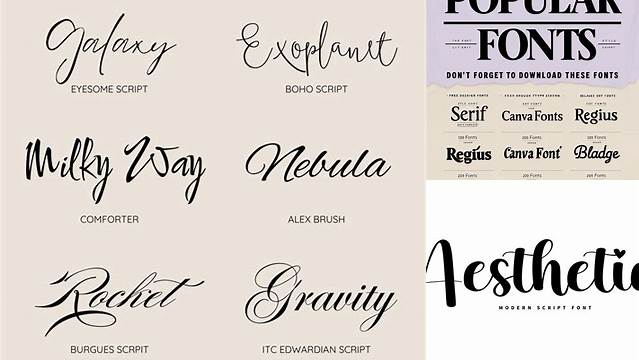
Aesthetic Fonts: Your Guide To Stylish Writing
Crafting visually appealing content is more than just a trend; it's an art form. And when it comes to visual appeal, aesthetic fonts for writing play a pivotal role. They're the unsung heroes that can transform mundane text into captivating pieces, drawing readers in and enhancing the overall reading experience. This article dives deep into the world of these fonts, exploring their nuances, providing recommendations, and guiding you on how to choose the perfect typography for your writing endeavors. Get ready to elevate your words with style and make your content truly unforgettable.
1. Unveiling the Allure of Aesthetic Fonts
Alright guys, let's talk about the magic of aesthetic fonts for writing. They're not just pretty faces; they're powerful tools. Think of them as the makeup for your words, instantly adding personality and flair. They go beyond the basic Times New Roman or Arial, offering a diverse range of styles, from elegant scripts to quirky hand-drawn designs. The right font can instantly convey the tone and mood of your writing, setting the stage for your message. The allure is undeniable; they grab attention and make your content more memorable. When you use aesthetic fonts, you're not just writing; you're curating an experience for your readers. It's about crafting something visually pleasing that complements the content itself, making the reading process more engaging and enjoyable. These fonts can create an emotional connection with your audience, fostering a deeper appreciation for your work. Think of a handwritten font used for a heartfelt letter or a bold, modern font that screams confidence in a marketing campaign. The choices are endless, and the impact is significant. The use of these fonts enhances readability, making the text easier on the eyes. This is especially important for online content, where readers tend to scan through text. By choosing a font that is both visually appealing and legible, you can encourage readers to stay longer and absorb your message more effectively. In essence, these fonts help to set you apart from the crowd, creating a brand identity that resonates with your target audience.
2. Decoding the Styles: Types of Aesthetic Fonts
Okay, so you want to know about the different types of aesthetic fonts for writing? Let's dive into the world of typography! There's a diverse range of styles to choose from, each with its own unique characteristics and applications. First, we have the ever-popular script fonts, which mimic handwriting. These are perfect for adding a touch of elegance, romance, or a personal touch. Think of wedding invitations, greeting cards, or anything that requires a sophisticated vibe. Then, there are serif fonts, known for their traditional appearance with small strokes at the ends of each letter. They exude a sense of formality and are often used in print media like books and newspapers. Next up are sans-serif fonts, which are clean and modern, without the strokes. They are very versatile and are suitable for both print and digital content, giving a sleek look. You also have display fonts, which are bolder and designed for headlines, titles, and short pieces of text. They are meant to grab attention and make a statement. Finally, we have decorative fonts, which are designed to add a unique flair to your designs. These can include anything from hand-drawn fonts to fonts with elaborate designs, all with a creative vibe. Understanding these different styles will enable you to select the ideal font for your project. Remember that the best font to use will depend on your individual needs and the audience you are trying to reach. The right choice can transform your writing and make it shine.
3. Finding Your Perfect Match: Font Selection Tips
Choosing the perfect font can be a game changer in using aesthetic fonts for writing. So, let's get you some tips. Consider your audience. What kind of tone do you want to achieve? Are you writing for a formal setting or a casual setting? Next, consider the message you're trying to convey. Different fonts express different personalities. A playful font is good for fun stuff, while a serif font brings formality. Always make sure your chosen font is easy to read. Prioritize legibility, especially for the main body of your text. Test the font. Write a sample of your content with the font you're considering. See how it looks in different sizes and on various backgrounds. Does it suit your style? Another thing is to think about the combination of fonts. Pairing fonts can make your content more dynamic. But make sure they complement each other. Finally, experiment with different fonts and don't be afraid to try something new. Font choice is all about the impression you want to make. Choose the font that resonates with your brand and target audience and creates a lasting impression. Consider the context, such as where your writing will be displayed, to help you decide which font will be the most suitable. Keep the design principles like contrast, balance, and harmony in mind to make your content aesthetically pleasing and reader-friendly. Remember, the goal is not only to communicate your message effectively but also to make it a pleasant experience for your audience. The right font choice makes a great impact.
4. Free vs. Premium: Where to Find Aesthetic Fonts
Okay, so you want to know where to find aesthetic fonts for writing? Here's the lowdown. There are loads of places to find fonts, both free and paid. Free fonts are awesome when you're on a budget. They are readily available from websites like Google Fonts, Font Squirrel, and DaFont. These sites offer a vast selection of fonts, from basic to quirky. However, free fonts often come with limitations. They might not have as many variations or extensive licensing rights. Always check the licensing agreement, as some free fonts are only for personal use. If you need the font for commercial purposes, make sure it's allowed. Premium fonts are paid fonts, which offer a higher quality and variety. You can find them at websites like Adobe Fonts, MyFonts, and Creative Market. Premium fonts often come with multiple weights, styles, and extended character sets. They also come with a commercial license, meaning you're free to use them for any project. Think of these as an investment. Premium fonts can significantly enhance the professional look of your writing. They may also have better design and quality. Many font designers offer support. They also have updates. The choice between free and premium depends on your project and budget. If you are a beginner or doing a personal project, free fonts are a good choice. But for professional work, invest in premium fonts to get the best results. Don't forget to compare and research before choosing a font.
5. The Art of Pairing: Font Combination Techniques
Let's talk about the magic of using aesthetic fonts for writing! Pairing fonts is about creating a balanced and visually appealing design. Avoid clashing combinations. Now, here are some tips to help you achieve that. Start with your primary font, the one you will use for headlines or titles. Select the secondary font for the body text. Choose fonts with different characteristics but which complement each other. You can use fonts from the same family, such as a serif font for headlines and a sans-serif font for body text. Another tip is to use contrasting fonts. Combine a bold display font with a simple sans-serif font. This creates a visual interest and guides the reader's eye. Also, keep the hierarchy of the fonts in mind. Make sure that your headlines and subheadings are more prominent than the body text. You can achieve this by using a larger font size or a bolder weight. Limit the number of fonts you use in a project. The general rule is two or three fonts at most. Using too many fonts can create a chaotic look. It is always important to consider readability. Your goal is to make your content easy to read. If the fonts are too different, they may be hard to distinguish. The combination of fonts should fit your brand and the message you're trying to convey. Experimenting is key. Test different combinations and see what works best for your writing. Practice makes perfect. With the proper pairings, you can make your content stunning and aesthetically pleasing.
6. Aesthetic Fonts for Branding: Building a Visual Identity
Let's dive into how you can use aesthetic fonts for writing to build a powerful brand. A visual identity is how your brand appears, including your logo, colors, and typography. This visual identity makes a strong impression. The font you use plays a vital role. First of all, choose a font that is representative of your brand's personality. Is your brand fun or professional? The font needs to match your brand's values and characteristics. Consistency is also important. Use the same font across all your marketing materials, from your website to your social media. This consistency will help build brand recognition. The font should reflect your brand's personality, creating a sense of trust and recognition. In addition, the font should be easy to read and visually appealing. This will ensure that your audience will actually read your content. You need to find a font that is compatible with your brand's personality. When building your brand, the font should also align with your target audience. Consider your audience's preferences and the type of content they consume. Experiment with your fonts and try different combinations. This will help you decide what best represents your brand. With the right font, you can make a lasting impact on your audience.
7. Enhancing Readability: Font Size and Spacing Considerations
Guys, when you are using aesthetic fonts for writing, it's not all about looks! It's essential to focus on readability. The font size makes a difference. Ensure that your font size is large enough to be easily read on different devices. For body text, a font size between 14-16 points is a good starting point. Consider your audience. What is their average age? The right font size ensures your content is accessible. Besides font size, spacing also plays a key role in readability. Proper spacing between letters, words, and lines of text makes a huge difference in how easy your content is to read. Use a line spacing of at least 1.5 times the font size. This will give enough space between lines. Adjust the letter spacing to prevent the letters from being too crowded or too far apart. Experiment with spacing to improve the overall readability. Make sure there's enough contrast between your font and the background color. This helps to improve readability. Avoid using light fonts on light backgrounds. In addition, consider the length of your lines of text. Lines of text should not be too long or too short. Keep your text easy to read. When optimizing your font, ensure it looks good on both desktop and mobile devices. Proper use of font size and spacing makes your content reader-friendly and enhances the overall user experience.
8. Aesthetic Fonts for Social Media: Making a Statement
Okay, let's talk about using aesthetic fonts for writing on social media. Social media is all about making a statement. Make your posts stand out with fonts. Consider the platform you're using. Instagram loves script fonts and stylish sans-serif fonts. Twitter is more about clarity and readability. You can use different font styles to create a unique brand identity. The font reflects your personality. Use the font to reflect your brand's tone. Create a consistent visual style. Using the same fonts across all your social media platforms will enhance your brand recognition. Make sure your font is easy to read on mobile devices. Most people view content on their phones. Use text overlays to add a personal touch to your photos. Choose fonts that match your photos and the theme of your post. Combine font styles to create a dynamic look. You can mix and match different fonts to highlight certain words or phrases. This helps capture your audience's attention. Remember to keep it simple. Don't overdo the fonts. The text should enhance your message, not distract from it. Always consider your audience. Choose fonts that appeal to them. By using stylish fonts on social media, you can make your posts more engaging and memorable.
9. Aesthetic Fonts for Websites: Designing for Readability
Using aesthetic fonts for writing to design your website is essential. Your website is often the first impression of your business. Fonts play a critical role in conveying your brand identity. When selecting fonts for your website, focus on readability. Choose fonts that are easy to read on different devices and screen sizes. Start with the body text. Use a clear and legible font for your body text. This ensures that visitors can easily read your content. Choose a font size that is appropriate for your target audience. You must also focus on the headings. Use a more decorative font for your headings. This will help to create visual interest. However, ensure that the heading fonts are legible. Test your font choices. Make sure the fonts work well on different devices. Ensure your website is accessible. When choosing your website fonts, you need to also consider your brand's personality. The font should reflect your brand's personality. If your brand is professional, use a more traditional font. Use a more modern and playful font for brands with a younger audience. Keep the design simple. Avoid using too many fonts on your website. This can make your website look cluttered. Keep the font colors in mind. Always ensure that the font colors contrast with the background. Use a font that is easy to read. When you get the font right, your website can have a greater impact on your visitors.
10. Aesthetic Fonts for Print: Making a Tangible Impact
Let's talk about how you can use aesthetic fonts for writing to make a tangible impact in print. Print materials, like brochures and posters, are still very important for businesses. The font is important for creating a great impression. First, consider the purpose of your print material. Are you creating a brochure, a poster, or a business card? The type of font you choose will depend on your print material. Readability is critical. Choose fonts that are easy to read, even in small sizes. For brochures and books, serif fonts are a great choice. They are easy to read in print. For posters and headlines, you can use a more decorative font. The font size should be appropriate for the print material. Use a larger font size for headlines. For brochures, choose a font size for body text that is easy to read. When choosing a font for print, consider the paper stock. Some fonts look better on matte paper. Others look better on glossy paper. Be consistent with your font choices. Use the same font throughout your print materials. This helps to create a cohesive and professional look. Consider your brand. Choose a font that reflects your brand's personality and values. If your brand is modern, use a clean, sans-serif font. Make sure your font is clear and easy to read. With the right font, your print materials will make a good impact.
11. Aesthetic Fonts for Digital Art: Adding Flair to Visuals
Using aesthetic fonts for writing in digital art can add a layer of creativity. If you are a digital artist, this is for you. First, select a font that complements your artwork. Do you want to create something bold or subtle? The font can enhance the emotion of your work. The font should match your art style. If you are creating minimalist art, select a clean font. If your art is more whimsical, you might choose a script font. Consider the color of your font. Choose a color that contrasts with the background of your art. This will ensure that the text is easy to read. Experiment with different fonts. You can create a mood or convey a message. The font size matters. Make sure your text is easy to read. The font should be in proportion to the rest of your art. You can also add text to your digital art. Select a font that fits your artwork. If you want to create more emphasis on your text, you can use a bold font. You can also add shadows, gradients, and other effects to your text to make it more interesting. Test your font choices. Make sure your text is visible and readable on different devices. By using fonts creatively, you can take your digital art to the next level.
12. Aesthetic Fonts for Invitations: Setting the Tone
Creating the perfect invitation is important when you want to use aesthetic fonts for writing. The font you choose sets the tone. Consider the event you're hosting. Is it a wedding, a birthday party, or a corporate event? The font choice has to fit the event. For weddings, elegant script fonts are good. For birthday parties, you can use a more fun font. When selecting your font, choose a font that reflects your personality. If you love classic style, a serif font is a good choice. If your style is modern, a sans-serif font will be fine. Readability is important. Choose a font that is easy to read. Make sure the font size is appropriate for the amount of text you need to include. Consider the paper type and printing method. If you are using a more formal printing method, you'll want to choose an elegant font. Test your font choices. Print a sample of your invitation to see how it looks. Experiment with different font combinations. You can use a mix of fonts to make your invitations look unique. Make sure that the fonts are harmonious and easy to read. Consider the overall design of the invitation. The font should match your design. By using aesthetic fonts, you can create invitations that impress your guests.
13. Aesthetic Fonts for Logos: Creating a Brand Identity
Let's talk about aesthetic fonts for writing when it comes to logos. Your logo is the face of your brand. It's important to choose a font that makes a good impression. A logo is the first thing customers will see. When choosing your logo font, consider your brand's personality. Is your brand friendly or formal? The font should reflect your brand. For a modern brand, a clean, sans-serif font is a good choice. For a traditional brand, a serif font will work well. The font should also be easy to read. The font must be easily understood. Avoid fonts that are too complex or ornate. Make sure your font is unique. Do a search to ensure your font is not similar to another brand's logo. Consider the colors. Choose a font color that contrasts with the background color of your logo. You should also think about versatility. The font should look good in different sizes and applications. Test your logo. Test your logo on different backgrounds. You can also ask others for feedback on your logo. Use the right font to represent your brand. Your logo can make a lasting impression.
14. Aesthetic Fonts for Email Marketing: Engaging Subscribers
When you're thinking about aesthetic fonts for writing, consider email marketing. Your email font plays a huge role in engaging your subscribers. A well-chosen font enhances the readability and design of your emails. Choose a font that's clear and easy to read. This is especially important because your subscribers will view your email on different devices. Make sure the font size is appropriate for your readers. The best choice for body text is a sans-serif font. Consider your brand's identity. Choose a font that matches your brand's personality. If your brand is friendly, use a more casual font. Keep your email design simple. Too many fonts and styles can confuse your subscribers. Test your emails before sending them. Send a test email to yourself. Make sure the font looks good on different devices. Always focus on mobile devices. Most people read emails on their phones. By using great fonts in your email, you can grab your audience's attention and keep them engaged.
15. Aesthetic Fonts for Presentations: Captivating Your Audience
When you make presentations, you should know how to use aesthetic fonts for writing. Your font choices can captivate your audience. The right font choices improve the readability of your slides. Choose a font that is easy to read from a distance. San-serif fonts are usually recommended for presentations because they are clear. Use a large font size. Make sure your font is big enough for everyone to see, even in the back of the room. Create contrast. Use a dark font color on a light background, or a light font color on a dark background. Limit the number of fonts. Stick to one or two fonts to avoid a cluttered look. Use headings and subheadings. You can use a different font for headings to create visual interest. Choose the right font for your brand. Your font choices can strengthen your message. Make sure your presentation is clear and easy to read. By using aesthetic fonts, you can make your presentations more engaging and memorable.
16. Aesthetic Fonts for Documents: Ensuring Professionalism
Let's talk about how to use aesthetic fonts for writing to make your documents look professional. First, the font you use can improve the readability of your documents. When writing documents, choose a clear and legible font. A serif font such as Times New Roman or Garamond is generally a great choice for a professional document. Make sure that your font size is appropriate. The standard font size for documents is 12 points. Use headings and subheadings to break up the text. This makes your document easier to read. Use bolding, italics, and underlines to emphasize key points. Keep your document consistent. Use the same font and formatting throughout your document. Avoid using too many different fonts. Use a font that reflects the tone of your document. If you are writing a formal document, use a more traditional font. Check for any design standards. By using the correct fonts in your documents, you can show that you're professional and detail-oriented. This will make your documents look good and impress your readers.
17. Aesthetic Fonts for Calligraphy: The Art of Lettering
Are you interested in learning how to use aesthetic fonts for writing in the art of calligraphy? The art of calligraphy is about beautiful lettering. The font is a central part of the art form. When you begin with calligraphy, choose a script font. Script fonts mimic handwriting. There are many different styles. You can use a variety of different pens and inks. Choose a pen that feels comfortable in your hand. You can also use different inks. Select the color that suits your style. Then, you can start practicing. The more you practice, the better you get. Work on consistency. The letters should be uniform. Practice the strokes. Practice the different strokes that make up the letters. Experiment with different styles. Don't be afraid to try different fonts and styles. There are many different calligraphy styles. You can combine the styles to make something unique. By practicing the art of calligraphy, you can create a beautiful piece of art. Calligraphy can also be used in invitations, cards, and many other places.
18. Aesthetic Fonts for Bullet Journals: Personalizing Your Planner
When you are using aesthetic fonts for writing, bullet journals are a great option for you! Bullet journals are personalized planners. They are also a creative outlet. You can use them to manage your daily tasks. When choosing a font, choose one that is easy to read. A script font is a great option. You can also use a sans-serif font. You can use a variety of pens. Use pens that have different colors and thicknesses. You can also use highlighters and markers to add visual interest. You can create different layouts in your bullet journal. You can include calendars, trackers, and lists. This creates a space for productivity and creativity. Experiment with headers and titles. Add headings to make it easy to organize your bullet journal. The use of different fonts makes your bullet journal look good. Bullet journals are also a creative process. Use colors, doodles, and stickers to make them your own. Bullet journals are a great place to experiment. Bullet journals also provide opportunities to use your imagination. Using aesthetic fonts can elevate your journaling experience.
19. Aesthetic Fonts for Scrapbooking: Preserving Memories
Let's talk about how to use aesthetic fonts for writing in scrapbooking. Scrapbooking is a fun way to preserve your memories. First, the font you choose sets the tone of your scrapbook pages. Select fonts that match your photos and the theme of your pages. If your scrapbook is about a wedding, use a script font. You can also use sans-serif fonts for a modern look. Then, use a variety of fonts. Mixing fonts can add visual interest to your pages. You can mix fonts for headings and body text. When creating your scrapbook, consider the size of your font. Use a font size that is easy to read. You can also add special effects to your fonts. You can add shadows, outlines, and other effects. This will make your text stand out. Make sure your font is consistent. Use the same font throughout your scrapbook. This will create a cohesive look. Scrapbooking is a great way to preserve your memories. Using aesthetic fonts will make your scrapbooks beautiful and memorable.
20. Aesthetic Fonts for Handwritten Notes: Adding a Personal Touch
Using aesthetic fonts for writing adds a special touch to your handwritten notes. You can use script fonts, which are good for making your notes look elegant. The handwriting styles give off a personal feel. You can also experiment with different pens and colors. Using different pens can make your notes look more interesting. Select the right font for your notes. The font you use should be consistent with the message you are trying to convey. Use a font that is legible. The text should be easy to read. The use of an aesthetic font shows you've put in the extra effort. Consider the purpose of your note. Is it a thank-you note, a love letter, or a message to a friend? Using the right font can convey the right message. Handwritten notes are about connection. They show you've put the effort into writing to them. You can personalize your notes by using different fonts, colors, and styles.
21. Aesthetic Fonts for Art Journals: Expressing Creativity
When you use aesthetic fonts for writing, it's also great for art journals! Art journals are about expressing creativity. The font is a central part of the art form. Choose a font that fits your style. If your style is colorful, you can use bold fonts. You can also experiment with different colors. Use a font that complements your art. You can use a script font for a more elegant look. You can also combine fonts to add visual interest to your art journal. Use headings and subheadings to organize your thoughts. Create different sections in your art journal. Art journals are about expressing yourself. Using aesthetic fonts gives you another tool to create and express your ideas. The font choice can inspire your creativity. Create a unique and personal art journal by using various fonts. By using different fonts in your art journal, you can express your creativity.
22. Aesthetic Fonts for Digital Signage: Grabbing Attention
Alright, let's talk about how to use aesthetic fonts for writing to grab attention with digital signage. Digital signage is all about communicating your message to viewers. The right font helps to make your message stand out. Choose fonts that are easy to read from a distance. San-serif fonts work well for digital signage because they are clear. Use a large font size. Make sure your font is large enough for viewers to see. Also, create contrast. Use a dark font color on a light background. You can also use a light font color on a dark background. Keep your design simple. Avoid using too many fonts to avoid a cluttered look. Choose the right font for your brand. Use a font that matches your brand's personality. Ensure that the font is easy to see. By using the right aesthetic fonts for your digital signage, you can make your message more effective. It's a great way to get attention.
23. Aesthetic Fonts for Infographics: Simplifying Information
Using aesthetic fonts for writing is super helpful for infographics. Infographics are about simplifying information. The font plays a huge role in the process. First, when you choose your font, keep readability in mind. Use fonts that are easy to read. Sans-serif fonts are often a good choice. Also, you should choose a font size that is appropriate. The font size should be large enough for viewers to read. You can use different font styles. Make headings stand out. Use headings to create visual interest. Limit the number of fonts. If you use too many fonts, your infographic can look cluttered. You should also consider the layout of your infographic. Make sure the text is easy to read. Use spacing to break up the text. Choose fonts that match your topic. The font should convey your message. With great fonts, your infographic will be informative and engaging.
24. Aesthetic Fonts for Newsletters: Keeping Readers Engaged
Let's talk about how to use aesthetic fonts for writing in newsletters. Newsletters are about engaging readers. When you make choices for your font, it can help you keep your readers engaged. Choose a font that is easy to read on different devices. Sans-serif fonts are great for readability. Select a font that matches your brand's personality. Make sure the font fits your brand. Make sure your font size is appropriate. The font size should be easy to read. Create a visual hierarchy by using different fonts and styles. Use headings, subheadings, and bullet points. Use bold, italics, and colors to create visual interest. Make sure your newsletter is mobile-friendly. The fonts should look great on mobile devices. With the right aesthetic fonts, your newsletter will be engaging.
25. Aesthetic Fonts for Resumes: Making a Professional Impression
When you think about using aesthetic fonts for writing, resumes are a good example! Resumes make an impression. Use a font that looks professional. Consider fonts like Times New Roman or Arial. These fonts are classic and easy to read. The font size should be easy to read. Choose a font size between 10-12 points. Use headings and subheadings to organize your resume. Then, make sure the formatting is consistent. Using the right aesthetic fonts in your resume shows attention to detail.
26. Aesthetic Fonts for Presentations: Enhancing Visual Appeal
When you present your presentations, think about using aesthetic fonts for writing. Your font choices can make your presentations visually appealing. Choose a font that is easy to read. San-serif fonts are great for readability. Use a large font size. Make sure your font is large enough for everyone to see. Use bolding, italics, and underlines to emphasize key points. By using great fonts, you can make your presentations more engaging.
27. Aesthetic Fonts for Book Covers: Capturing Attention
When you're using aesthetic fonts for writing, think about book covers. Book covers are all about grabbing attention. The right font will capture attention. Choose a font that matches your book genre. A serif font is a good choice for your book's cover. The font should also be easy to read. Ensure your font size is appropriate. By using great fonts, your book will be able to grab the readers' attention.
28. Aesthetic Fonts for Quotes: Highlighting Inspiration
When thinking about aesthetic fonts for writing, quotes are a great option. Fonts for quotes highlight inspiration. First, select a font that complements the quote. The font should also be easy to read. You can also use different font sizes. By using the right fonts, you can make your quote even more impactful.
29. Aesthetic Fonts for Tutorials: Guiding and Engaging Learners
When you're using aesthetic fonts for writing, it's also great for tutorials. The right fonts help to guide and engage learners. Choose a font that is easy to read. Make sure your font size is easy to see. The font should be easy to read on any device. Using different font styles creates visual interest. With the right fonts, your tutorials will be engaging.
30. The Future of Aesthetic Fonts: Trends and Innovations
Let's consider the future of aesthetic fonts for writing. We can expect to see more diversity in the font world. Font designers are creating fonts that are accessible to everyone. The future of aesthetic fonts will involve integration. With the right font, you can create a long-lasting impression. The right font is a key part of expressing yourself. You can use the right aesthetic fonts to create engaging and creative content.